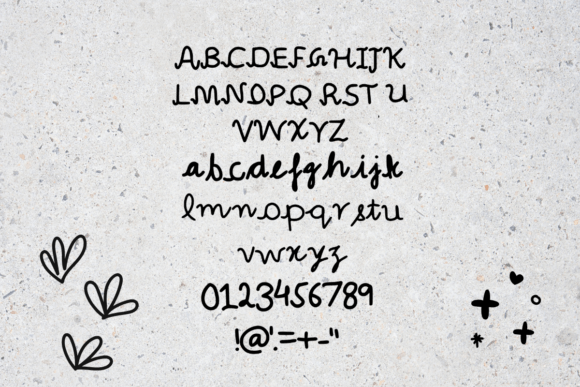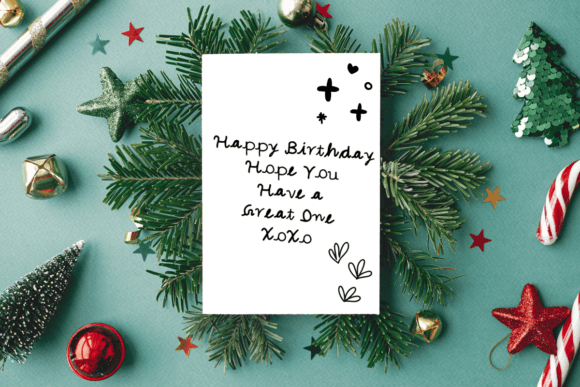
Introduction to Handwritten Curve Font
Have you ever been stuck on a design project, searching for that perfect font to bring your idea to life? I know I have! The blank page stares back at you, begging for inspiration. It’s moments like these that I turn to a trusty design resource – a unique and high-quality font that can make all the difference.
Enter the Handwritten Curve Font, a playful and quirky handwritten font that’s about to become your new best friend. With its natural, imperfect strokes and charming doodles, this font is perfect for adding a personal touch to your designs. Whether you’re working on a branding project, social media post, or DIY craft, this font is sure to bring a smile to your face and make your work stand out.
Key Features of Handwritten Curve Font
- High-quality, free download design resource ideal for creative projects
- Unique, handwritten style with smooth, curved lines for a personal touch
- Includes a transparent background, allowing for easy layering and customization
- Designed at 300 DPI for high-resolution printing and digital use
- Comes in a range of sizes, from 12 to 72 points, for flexible application in various contexts
- Perfect for adding a touch of elegance and sophistication to logos, branding materials, and more
Honest Review: Handwritten Curve Font
I recently stumbled upon the Handwritten Curve Font and I must say it’s been a game-changer for my design projects. As a designer, I’m always on the lookout for unique and high-quality design resources to elevate my creative work.
What works well is the font’s versatility. I can use it for a wide range of projects, from branding and marketing materials to digital art and editorial design. The Handwritten Curve Font is perfect for adding a touch of elegance and sophistication to my designs. The high quality of the font is evident in its smooth curves and even spacing.
- ✨ Unique and elegant design that adds a touch of sophistication to my designs
- ✨ High-quality design resource that’s perfect for a variety of projects
However, I did encounter some limitations. The font only comes with a transparent background, which can make it challenging to use in certain design scenarios. Additionally, the font doesn’t have as many character variations as I would like, which can limit its usage in certain contexts.
Overall, I’m impressed with the Handwritten Curve Font and would definitely recommend it to fellow designers. It’s a valuable addition to any design resource library and can help take your creative projects to the next level.
How to Use Handwritten Curve Font
The Handwritten Curve Font is a high-quality, free download design resource perfect for creative projects. It features a unique, handwritten style with a transparent background, making it easy to incorporate into various designs.
Tips for Getting the Most Out of Handwritten Curve Font
Use the Handwritten Curve Font in combination with other design elements, such as images and shapes, to create a unique and eye-catching design. Experiment with different font sizes and styles to add visual interest.
The Handwritten Curve Font is ideal for use in creative projects such as invitations, posters, and social media graphics. Its unique style and transparent background make it a versatile design resource for a variety of applications.
Alternatives to Handwritten Curve Font
Great Vibes is a beautiful, high-quality handwritten font that is perfect for creative projects such as invitations, posters, and social media graphics. It features a unique, flowing design that adds a personal touch to any design. Great Vibes is a great alternative to Handwritten Curve Font when you need a font with a more elegant and sophisticated feel.
Pacifico is a stylish, handwritten font that is ideal for design projects that require a touch of elegance and sophistication. It features a beautiful, flowing design with a transparent background, making it perfect for use on images or graphics. Pacifico is a great alternative to Handwritten Curve Font when you need a font with a more modern and sleek feel.
Is the Handwritten Curve Font available with a transparent background?
Yes, the Handwritten Curve Font is available with a transparent background, making it perfect for use on images with complex backgrounds or for creating overlays. You can also adjust the opacity of the font in your design software to achieve the desired level of transparency.